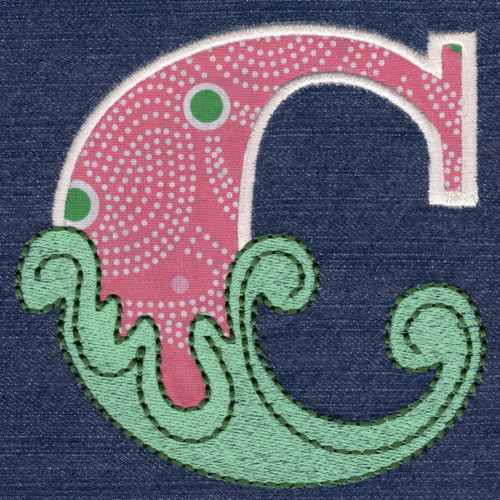
378 St Louis Applique Monogram Font
St Louis Applique Monogram Fonts comes in 3", 4" & 5" heights. Features all 26 Capital letters. Each letter uses standard Applique techniques, Satin stitching, Fill stitch and Floss stitch accents. Applique Instructions available on the top Menu of the home page. Letters are set up with applique set stitch and three color stops. All of the 3" set except for 'w' fits standard 4x4 hoops. Letters in the 4" set fit standard 5x7 hoops and some letters in the 5" set will require larger than 5x7 hoops to stitch out.